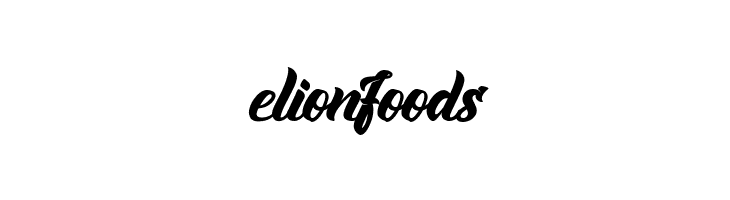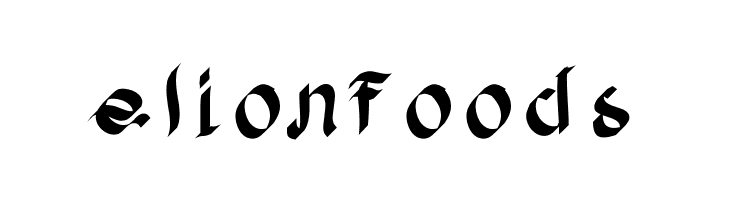
An elegant, flowing script font with intricate loops and swirls.
( Fonts by Sacred Nipple - Brode Vosloo )
A bold, slightly condensed font with a modern vintage style.
( Rafael Branco - www.ararazu.com )
A classic blackletter font with bold, ornate letterforms and high contrast.
A bold, flowing script font with elegant curves and artistic flourishes.
A bold, high-contrast serif font with sharp serifs and a modern twist.
( Henry Cohn )
A geometric, minimalist font with thin, linear strokes and angular forms.
( Fonts by Mr. Typeman )
A modern, cursive font with smooth, interconnected strokes and a handwritten feel.
A bold, decorative font with a three-dimensional, layered effect.